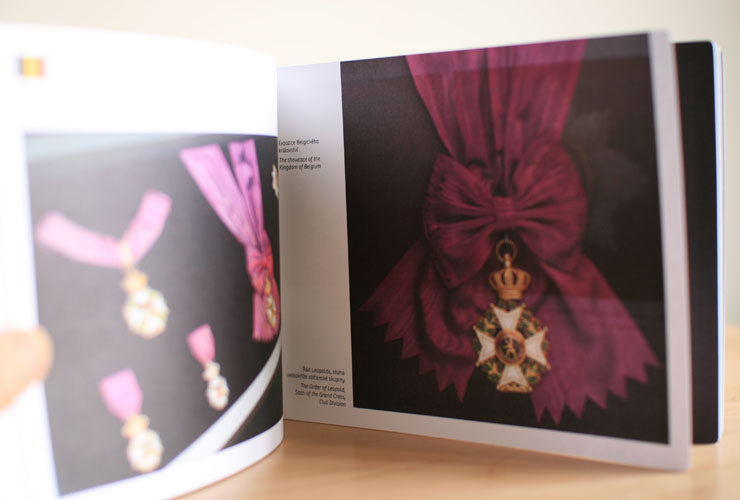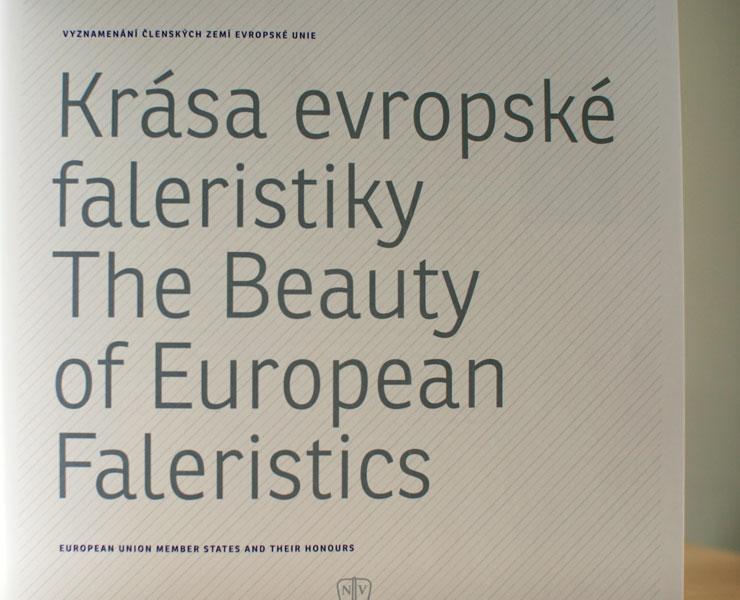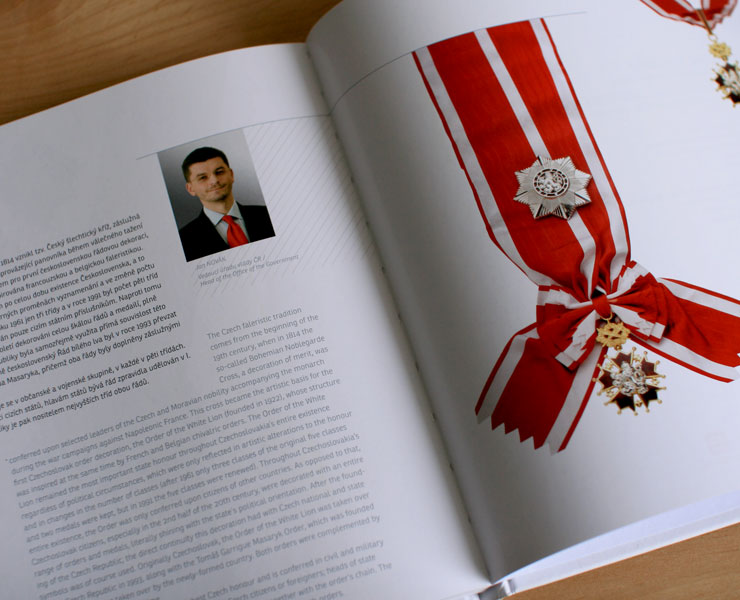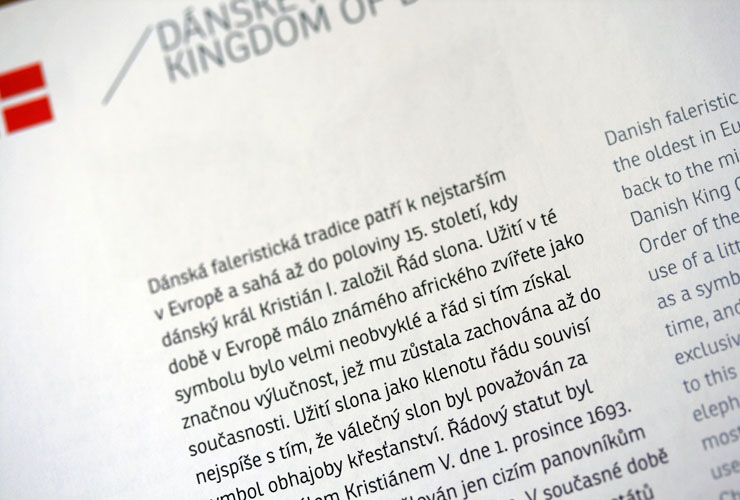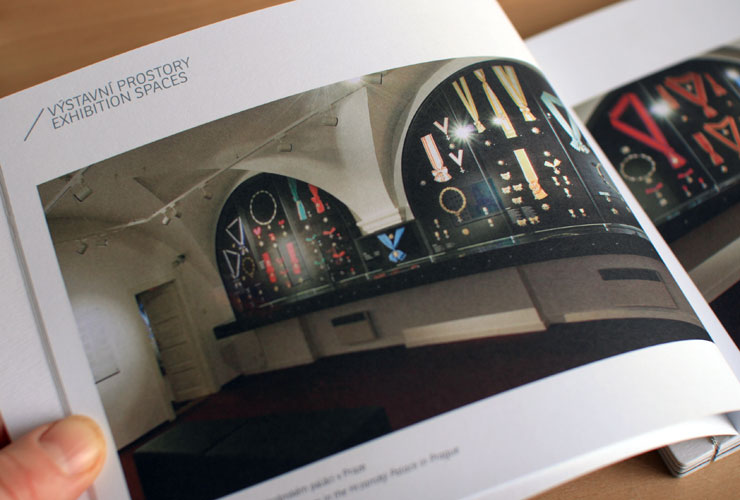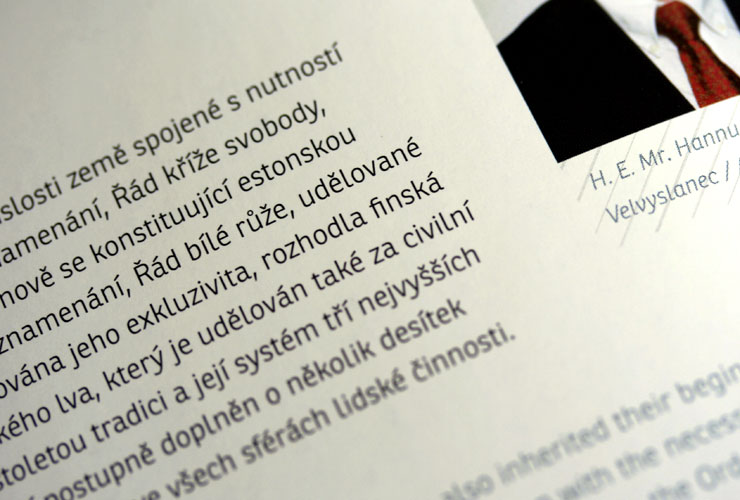
European Faleristics
Ronnia was selected as main typeface for text and headlines in 2 different catalogues, accompayning an exhbition on European Faleristics (state orders and honours). The book version is bilingual, Czech and English, showing reproductions of the most important honours of each European country, and some explanatory text. The design was realised by Filip Blažek from Czech Studio Designiq.